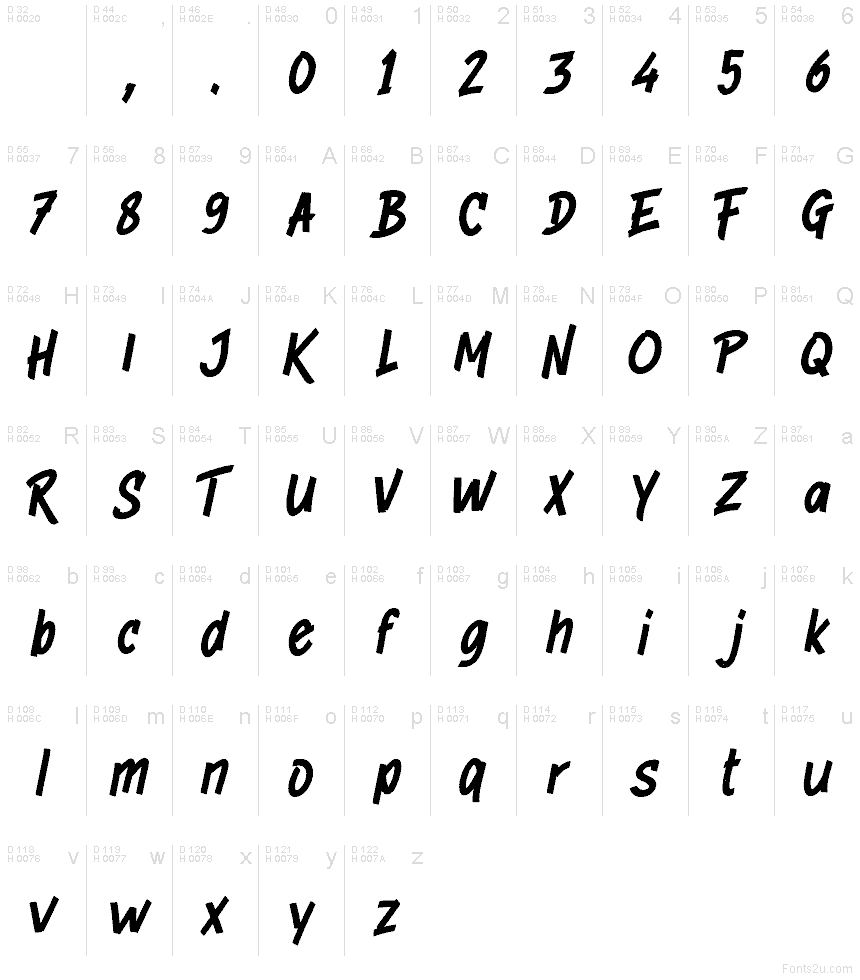
Land of Fear font by Ikiiko Type is a free expressive display font with a casual and energetic flow. Its brush-like texture and artistic flair draw inspiration from retro-styled art movements, and it conveys a sense of absolute movement to the readers. Use it when power, dynamics, uniqueness, or coolness are what matters most in your design.
The font can shine on headings, apparel design, CD cover design, display titles, logos & branding projects. Additionally potential applications include packaging design (from food products to boxes), magazines or even video game titles. Typography work takes time but Land of Fear allows you that extra mile for each project that comes your way.